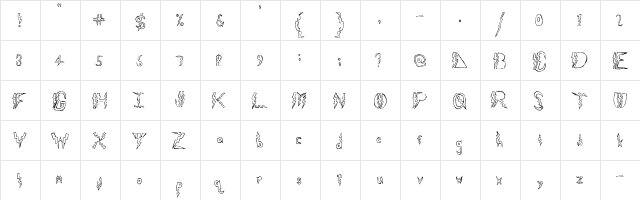
Lightning Strike Regular Font Preview
Lightning Strike Regular
Lightning Strike Regular Font Details
Design Context for Lightning Strike Typeface
Lightning Strike is a composed and adaptable typeface that performs quietly and consistently across a wide range of design contexts. The delicate stroke weight brings airiness and refinement to layouts.
Pro Tip: Use Lightning Strike in both headline and body roles to test its range before committing to a single application.